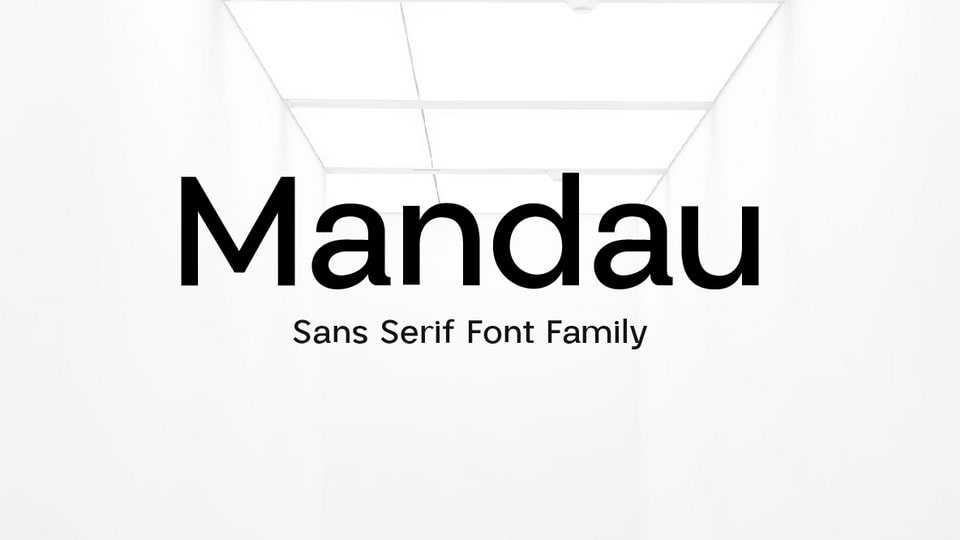
Download Mandau font, a sans serif typeface that has a modern and minimalist design with clean, bold lines, making it easy to read and perfect for a variety of graphic design purposes.
Designer: Yukita Creative